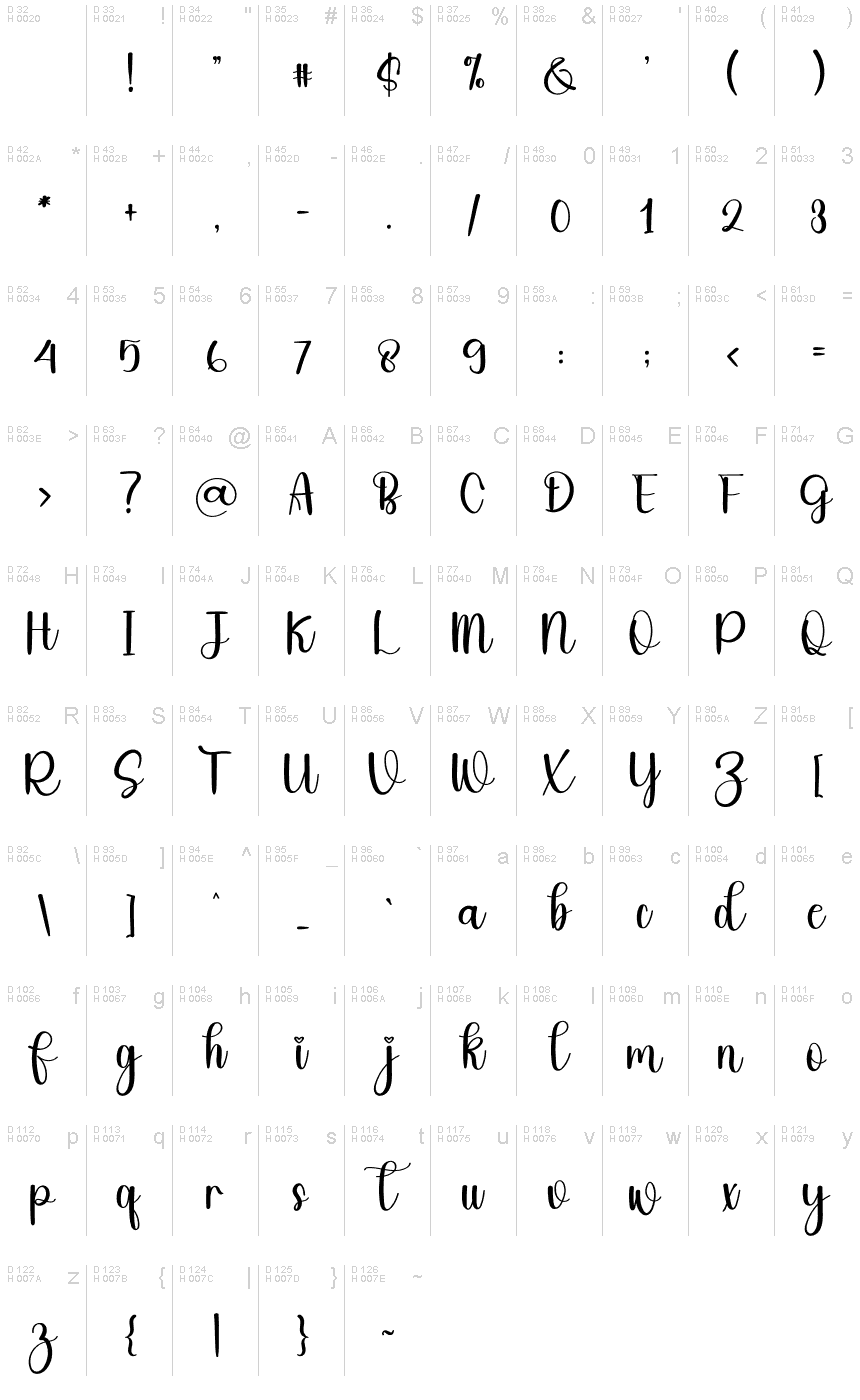
Sweethappy
Sweet Happy, designed by Inermedia Studio, is a charming calligraphy font that embodies the essence of joy and happiness. With its semi-light weight, it adds a delicate touch to any design project, perfect for invitations, greeting cards or any text that needs an elegant and playful feel. Its graceful curves and flowing lines make it a great choice for branding projects that want to convey sophistication with a whimsical twist. Whether you're designing for weddings, fashion, or food industries, Sweet Happy will add a touch of cheerfulness to your work.